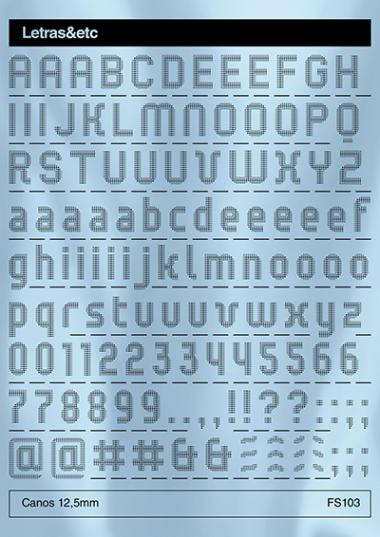
Congratulations! FontStruct Staff have deemed your FontStruction worthy of special mention. “Canos” is now a Top Pick.
An excellent first FontStruction. Congratulations on a TP.
Effective and imaginative use of circles.
Thank you @p2pnut and @four! It took some time, but it was very fun to design it.
Love the 'Letraset' sample - I used to use it a lot in the bad ol' days :)
Ha ha. I agree with p2pnut. The Letraset sample certainly brings back many memories, of searching through catalogs, ordering the font,then waiting several days for it to arrive, then rubbing those frustrating letters into a perfect straight line, with perfect spacing. One f*ck up, and it was all over!! Oh how things have thankfully changed..... :)
Ahh! those catalogues ... back in the early 60's they were my introduction to the world of typography and directly led to my lifelong interest in this field.
I'm glad it brought those nice memories back for you guys — it means the joke worked ;-)
When I started studying design computers were already dominating it all. But I have some of those old catalogs, and I'm sure they made a lot of people fall in love with type.
Canos wouldn't be an easy font to tranfer, right?
It may have had its heyday in the psychodelic 60's, but I think laying out this one with Letraset would leave you with semi-permanent dots in front of your eyes :)